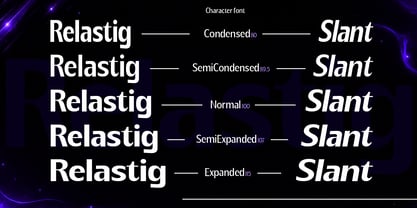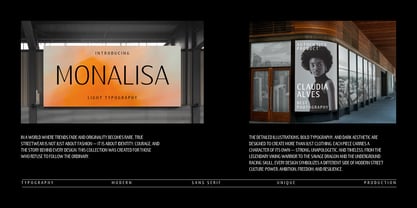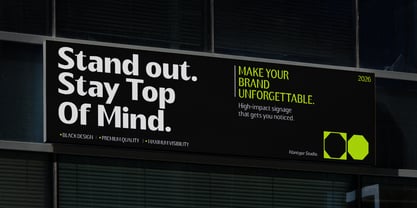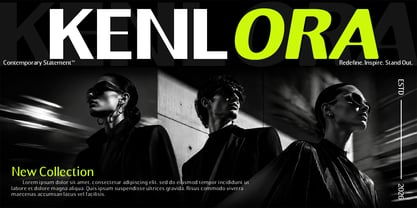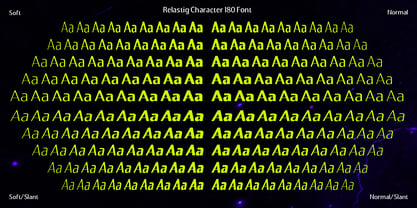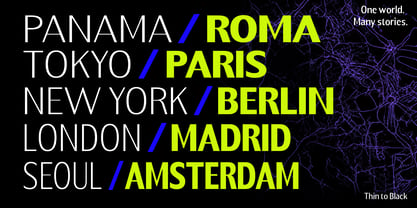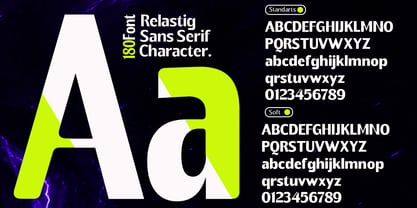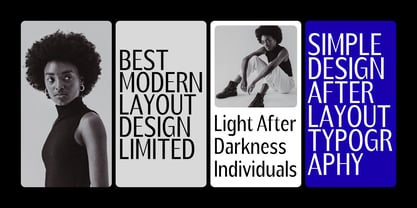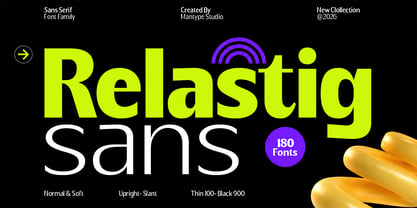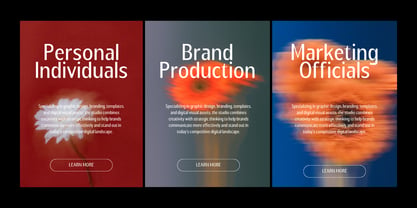
Relastig
The Relastig Font Family was designed by Sulai Man and published by Mantype Studio. Relastig contains 181 styles and family package options. More about this family
Relastig Sans is a contemporary sans serif typeface family that balances bold geometric structure with smooth, approachable curves. Designed for modern branding, editorial layouts, digital interfaces, and high-impact typography, Relastig delivers a clean yet expressive visual presence that stands out across both print and screen applications.
Featuring 180 fonts, the family offers extensive versatility with weights ranging from Thin 100 to Black 900, alongside both Upright and Slant styles. Its carefully crafted letterforms combine strong proportions, open counters, and soft terminals, creating excellent readability while maintaining a distinctive personality.
Relastig is built to adapt seamlessly across a wide range of creative projects—from minimalist branding systems and corporate identities to advertising campaigns, packaging design, social media graphics, and editorial publications. The typeface’s balance of precision and softness gives it a modern, friendly character that feels both professional and accessible.